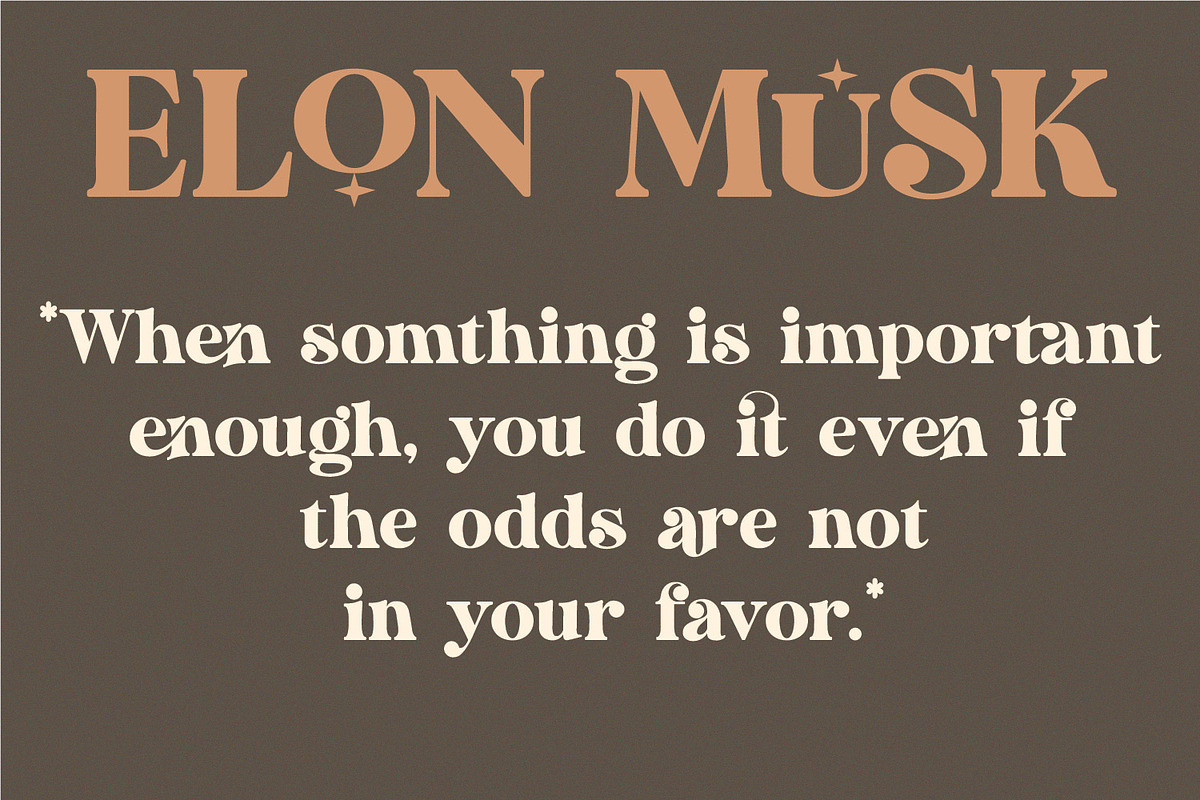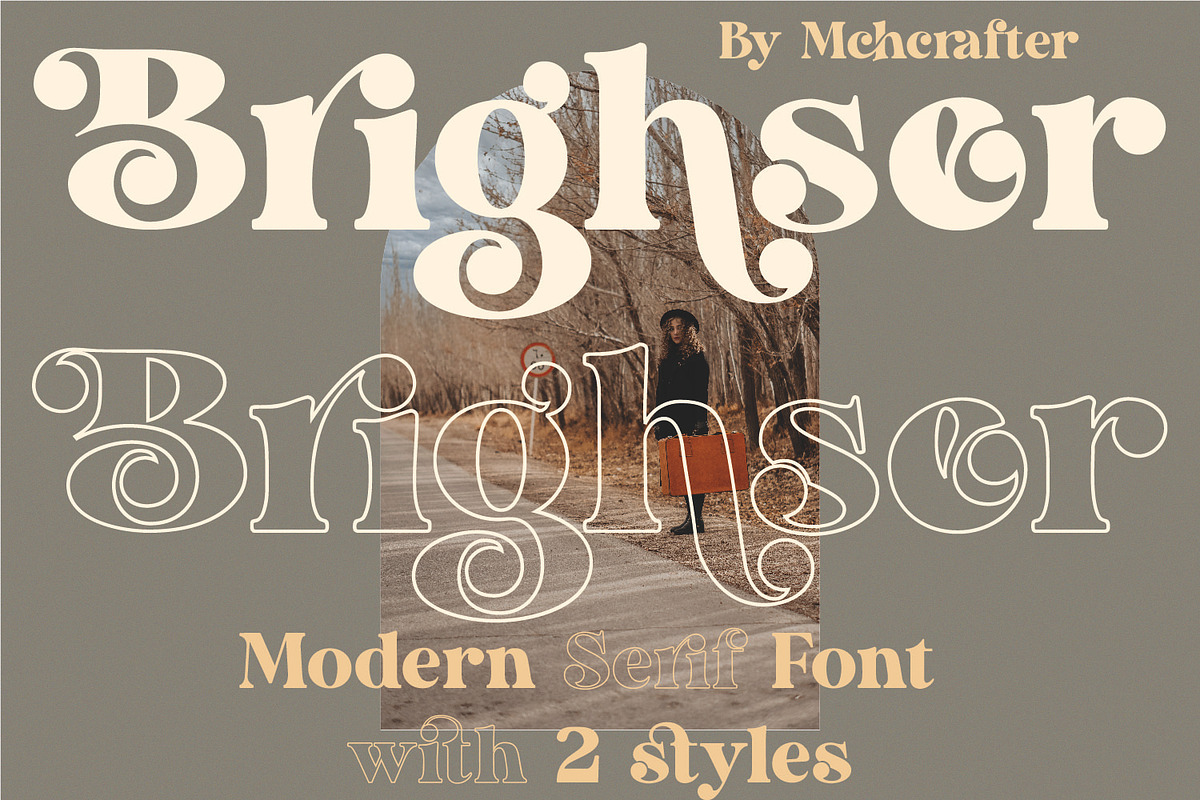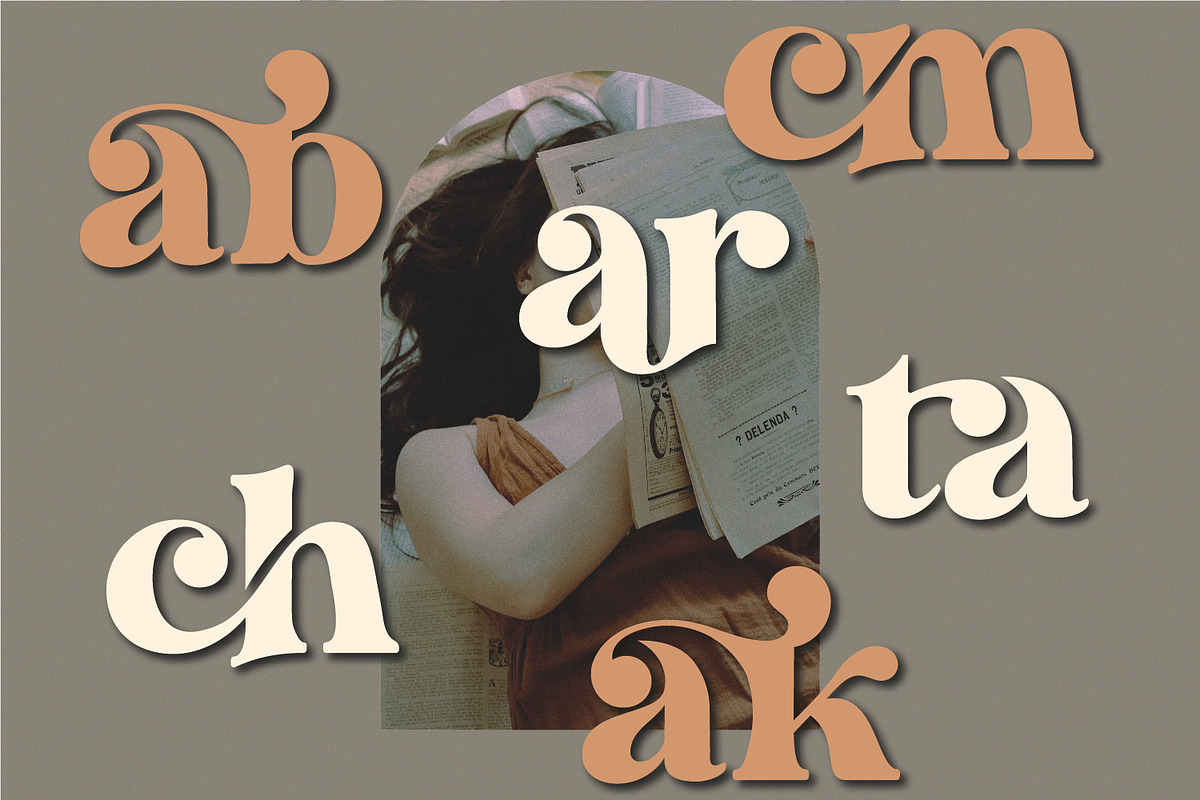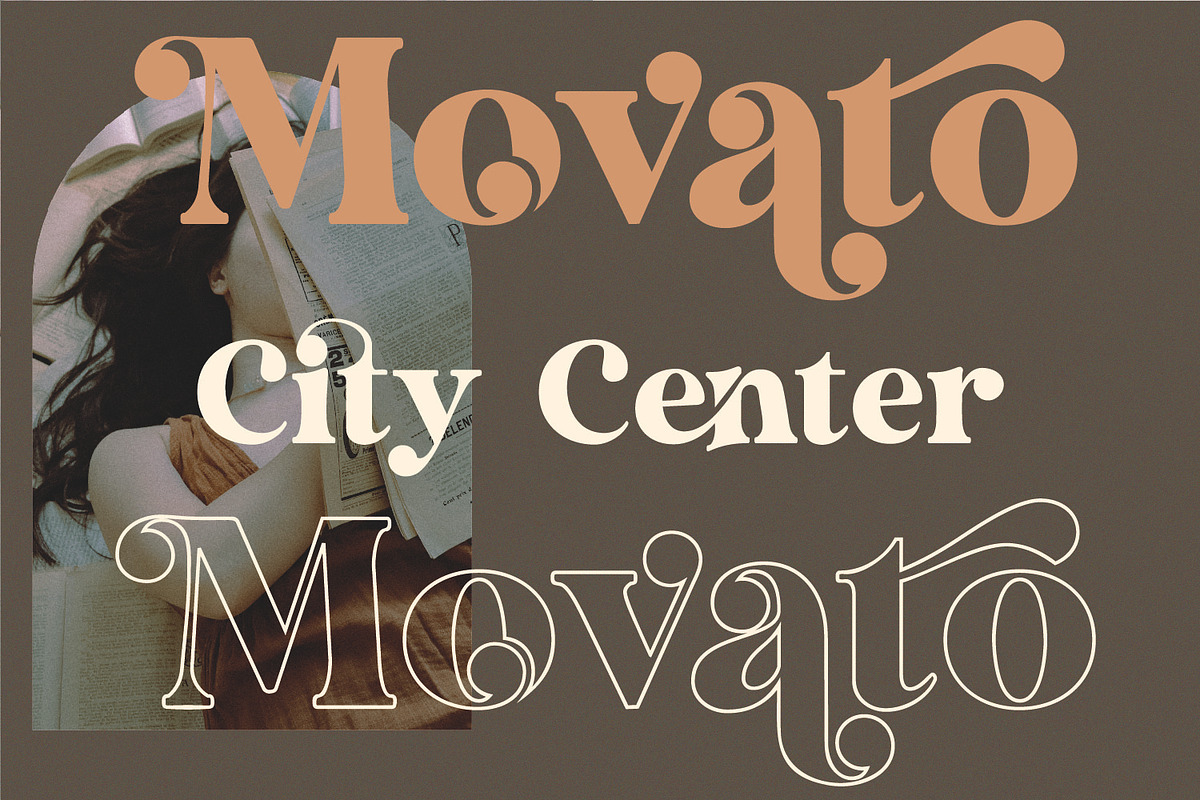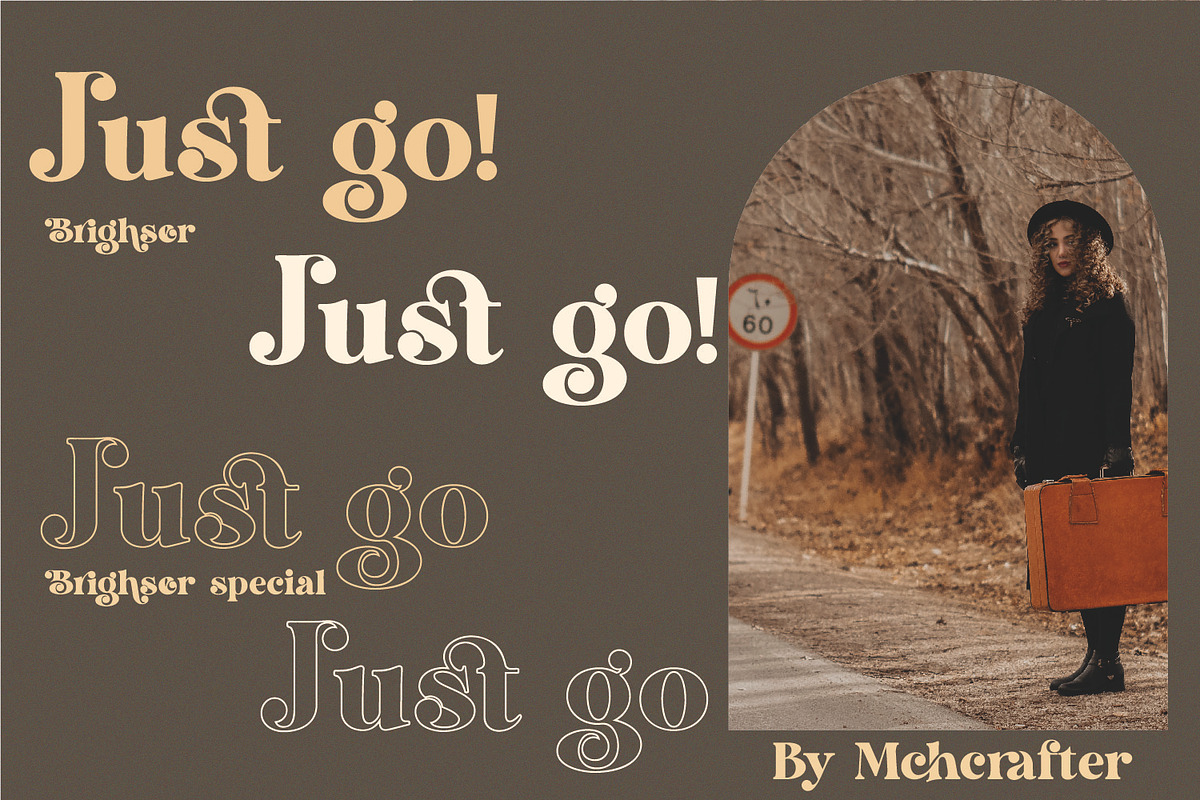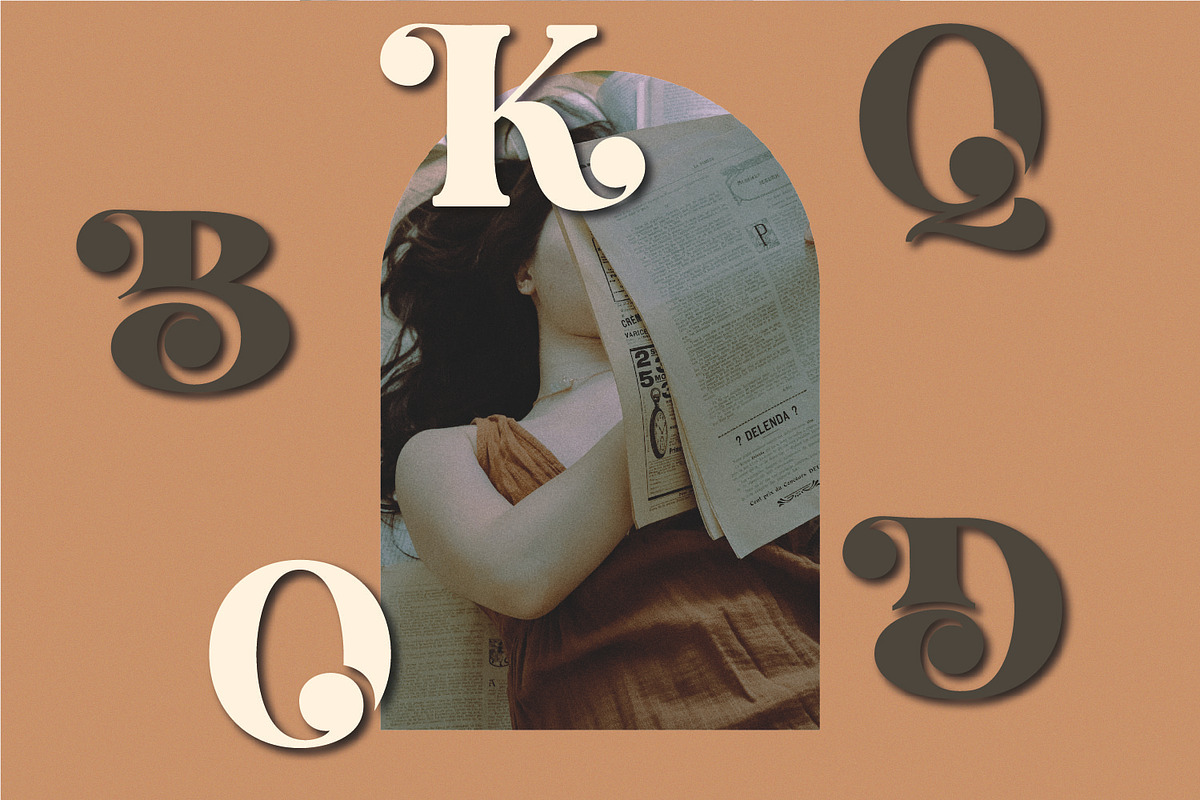
Brighser | Retro Serif Family
Brighser font family is a Modern Stylistic Serif typeface family with 2 styles A new serif that we created specially for branding needs, with extra ligatures and alternates in a unique shape just to add value to your brand. It so nice to leverage designer or product owner that need solutions to make their design look more stylish and modern.
And specially for Brighser font family, We prepared all the ligatures, and the alternates characters to help you create unlimited variations for your creative needs.
Brighser font family (2 styles) includes:
- All uppercase & lowercase letters
- All numbers 0-9 & Punctuation
- Multiligual Letters